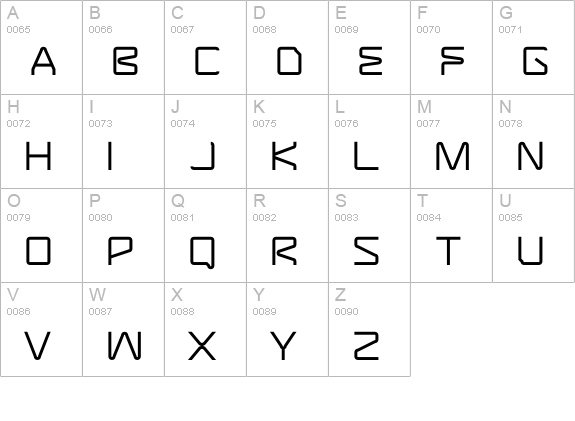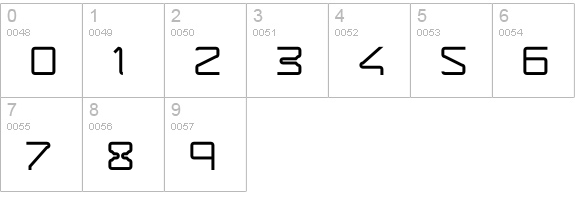
Assembler-Regular is the standard, neutral variant in the Assembler typeface family \xE2\x80\x94 well suited to general body text, paragraphs, and standard typographic work.
Assembler-Regular font is a sleek and modern typeface that exudes a sense of precision and efficiency. Its clean lines and sharp angles make it perfect for conveying a sense of professionalism and technical prowess in your design projects. The font is versatile and can be used for various purposes, from branding to web design to editorial layouts. What's even better is that Assembler-Regular font is completely free to download at FontsMarket.com. This means you can easily access this high-quality font without having to worry about any costs. So go ahead and elevate your designs with the sleek and stylish Assembler-Regular font today!